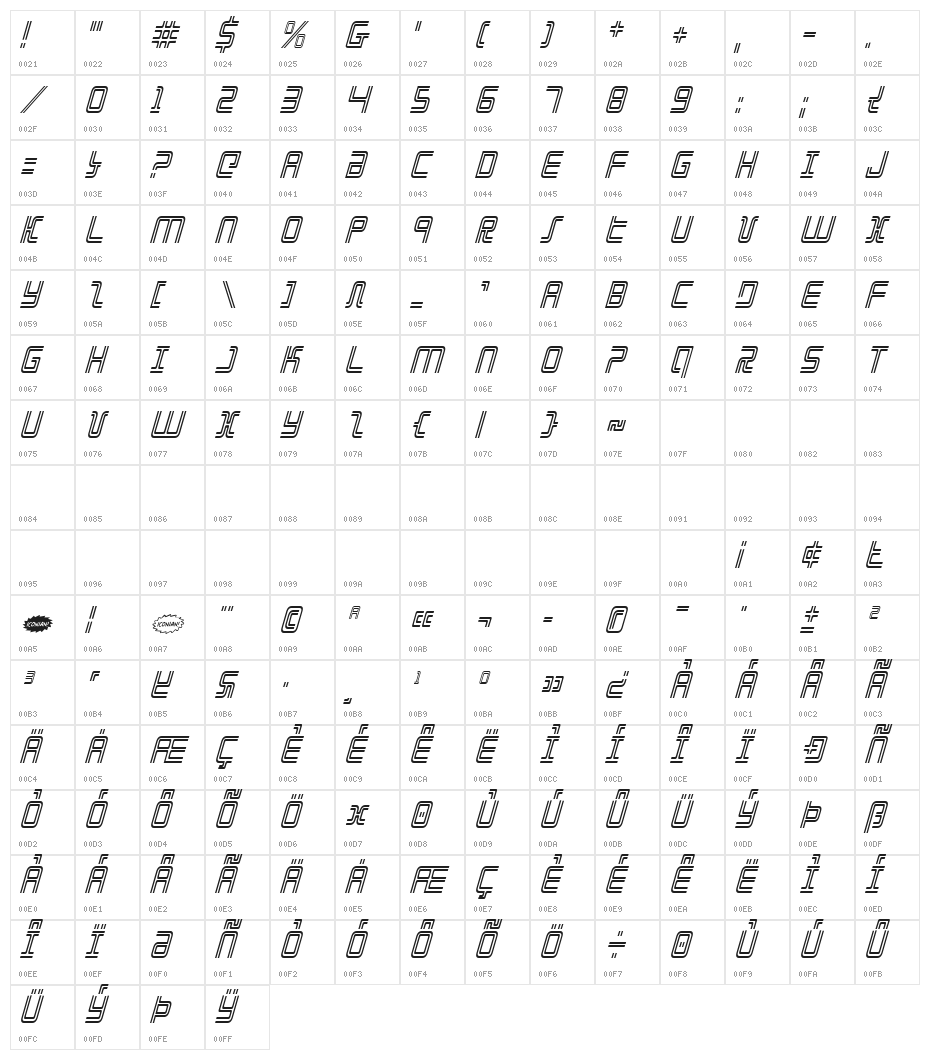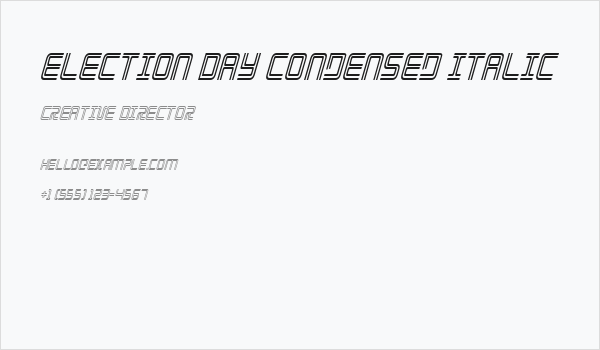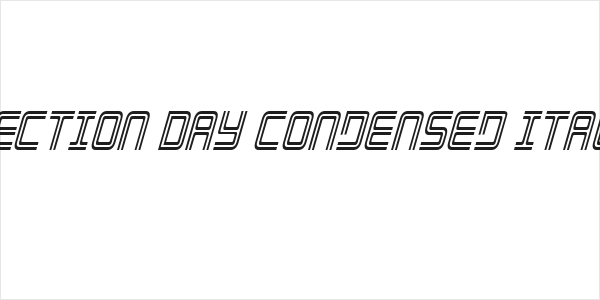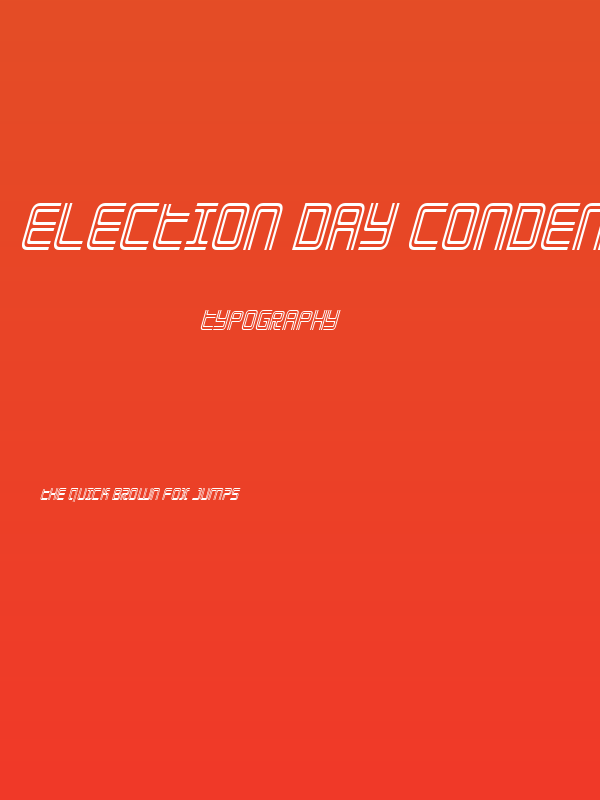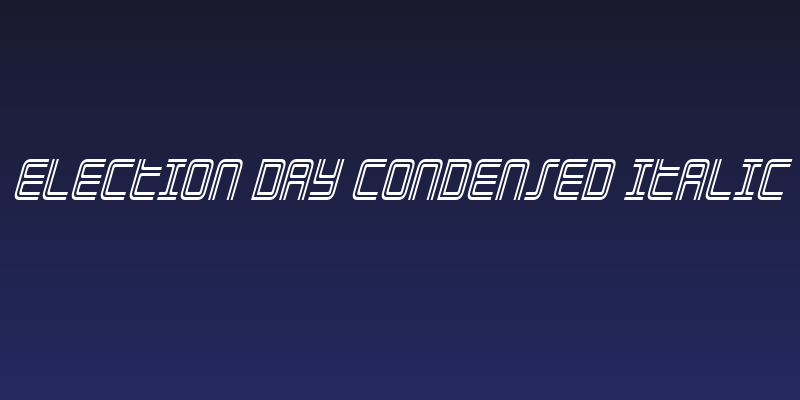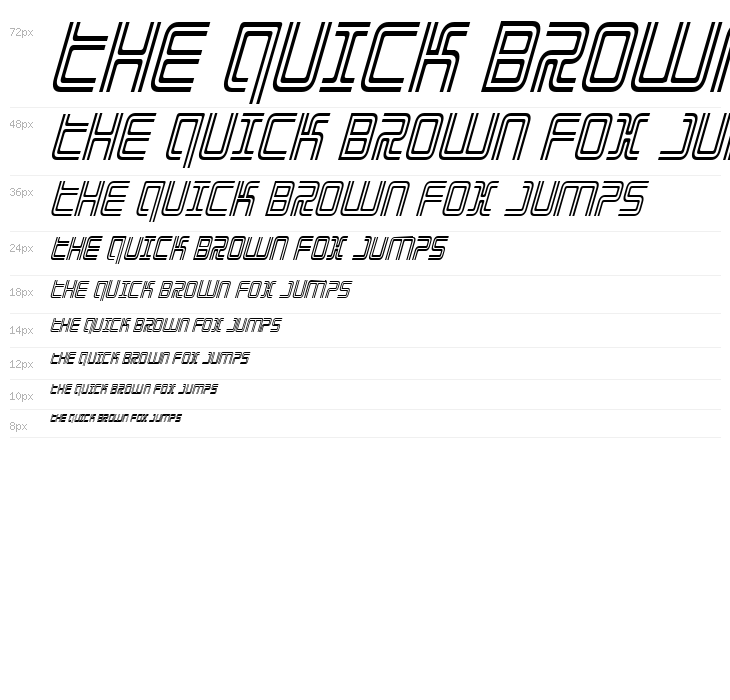
Election Day Condensed Italic Font
Election Day Condensed Italic Description
This font features a modern, geometric design with a condensed and italicized style. The characters are outlined with a double-line effect, creating a sense of depth and movement. The uppercase and lowercase letters maintain a consistent height, enhancing the uniformity of the typeface. The numbers and special characters follow the same design principles, ensuring a cohesive look across all elements. The font's sharp angles and clean lines give it a futuristic and dynamic appearance, making it suitable for projects that require a bold and eye-catching typeface.
Proposed ProjectsIdeal for futuristic branding, tech-related designs, sports event posters, and dynamic advertising campaigns.